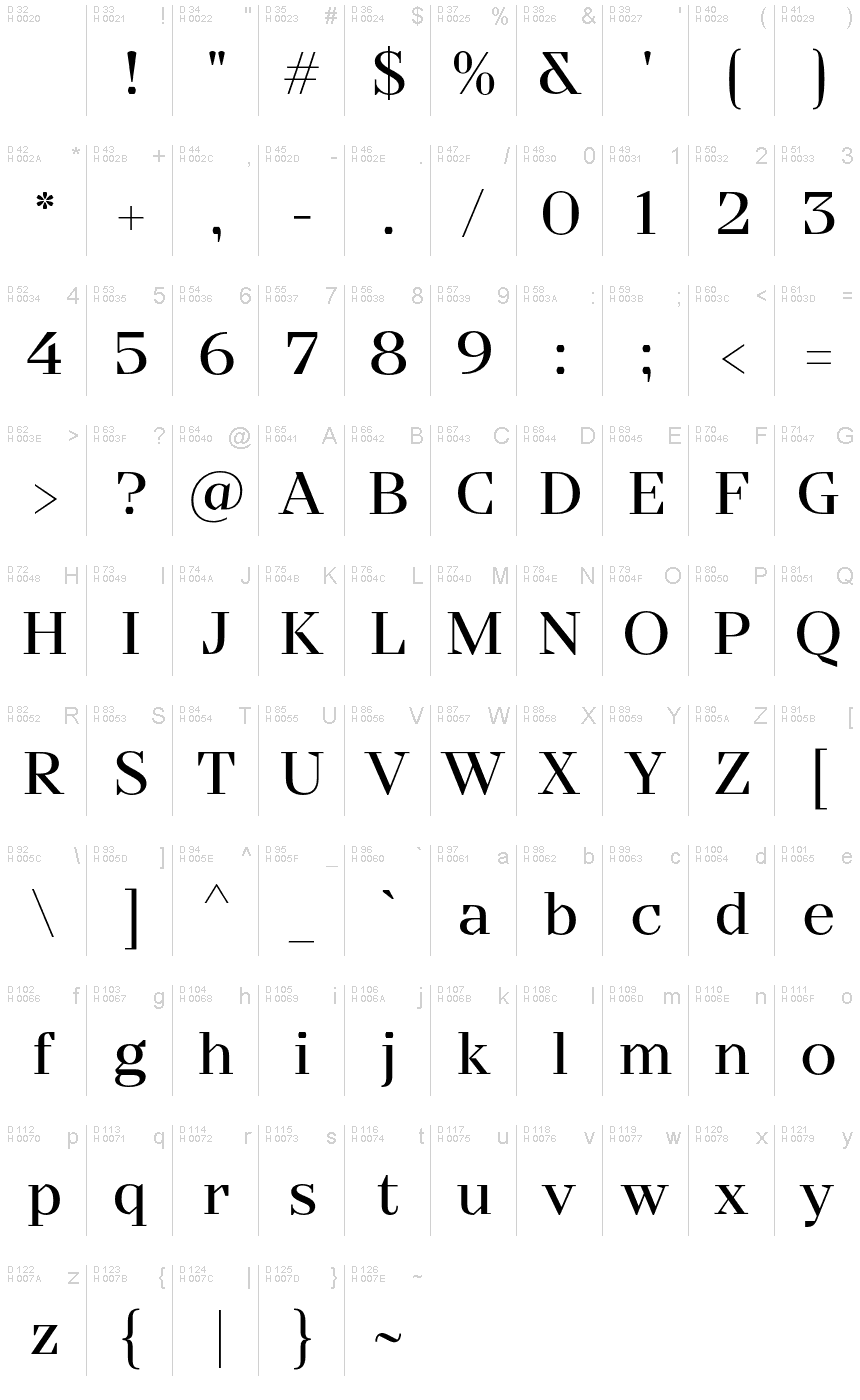
Anteprima del carattere TT Nooks Trial Regular
TT Nooks is a unique and versatile freeform serif font designed by TypeType Foundry. Its unconventional style adds a touch of creativity and personality to any project, making it perfect for branding, editorial design, packaging, and even websites. With a variety of weights available, from light to semi-bold font types, TT Nooks can be used for both headings and body copy. The font's fluid lines and organic shapes make it ideal for projects that require a natural or handcrafted feel. Whether you're designing a logo for an artisanal bakery or creating an editorial layout for a fashion magazine, TT Nooks is the perfect choice to give your work that extra touch of originality.